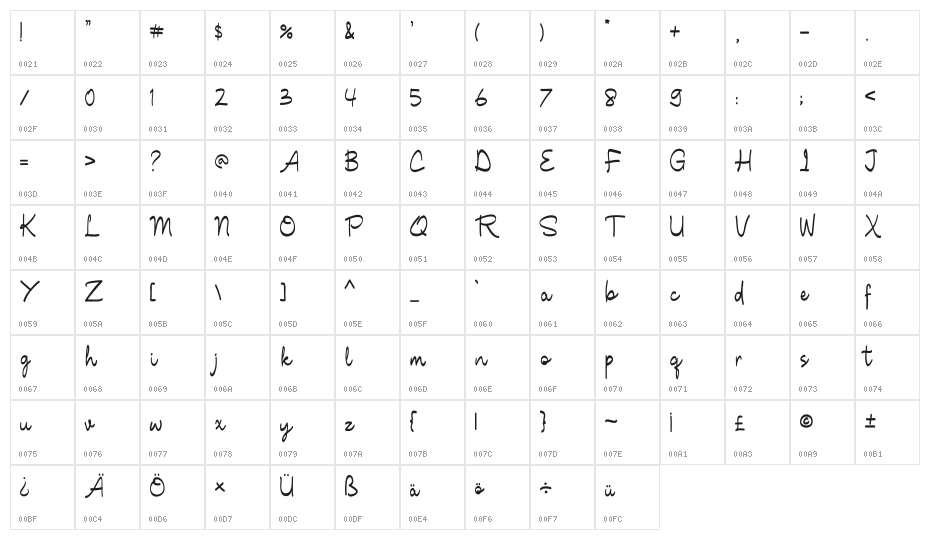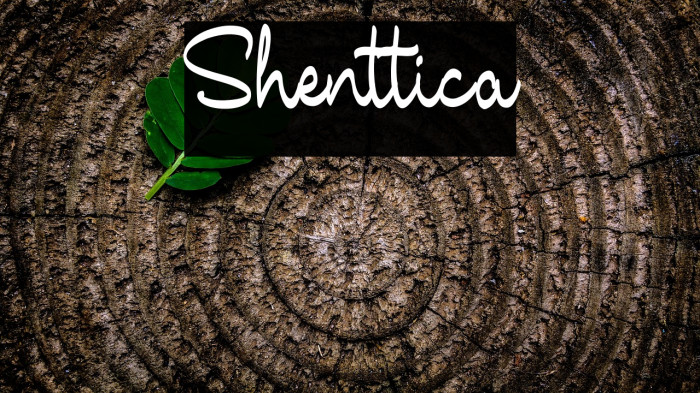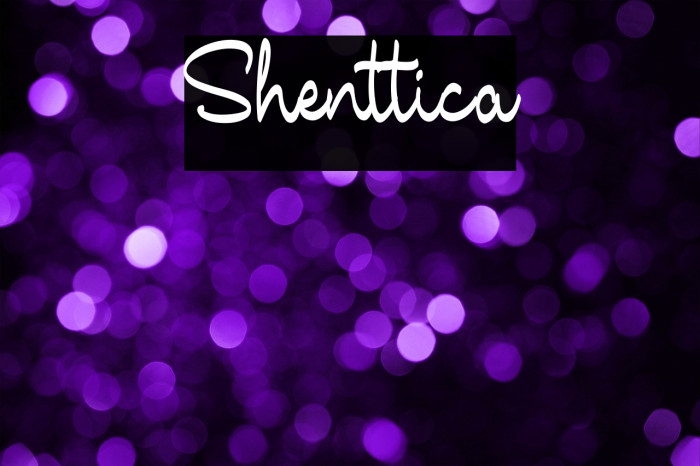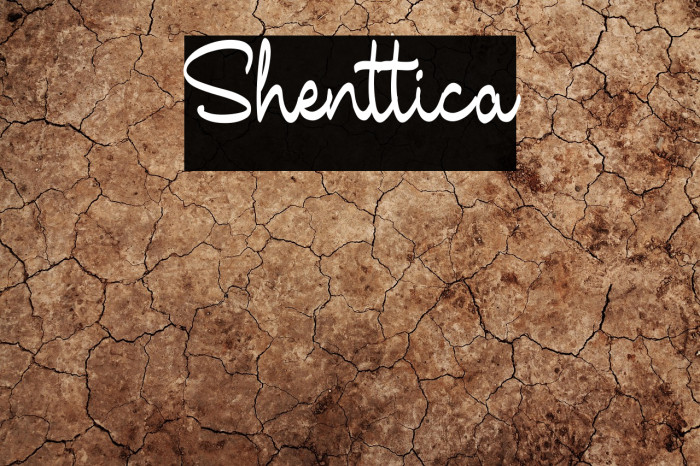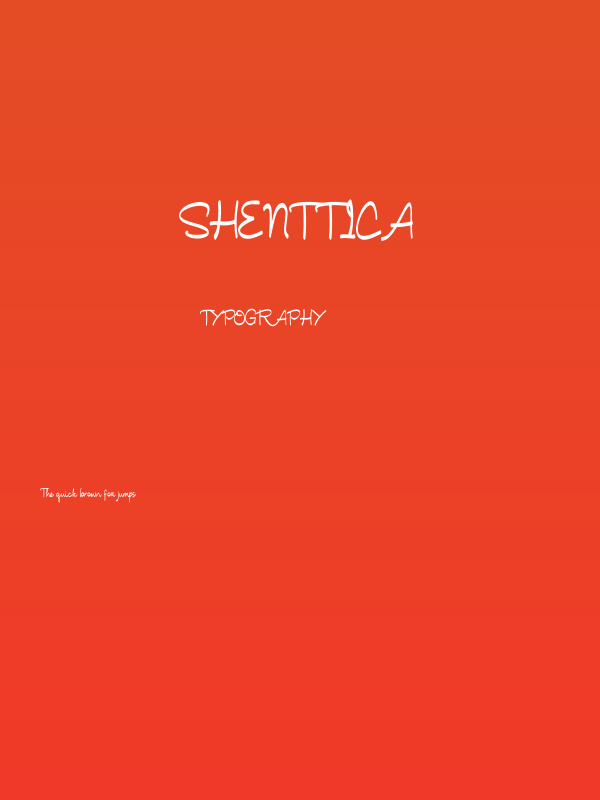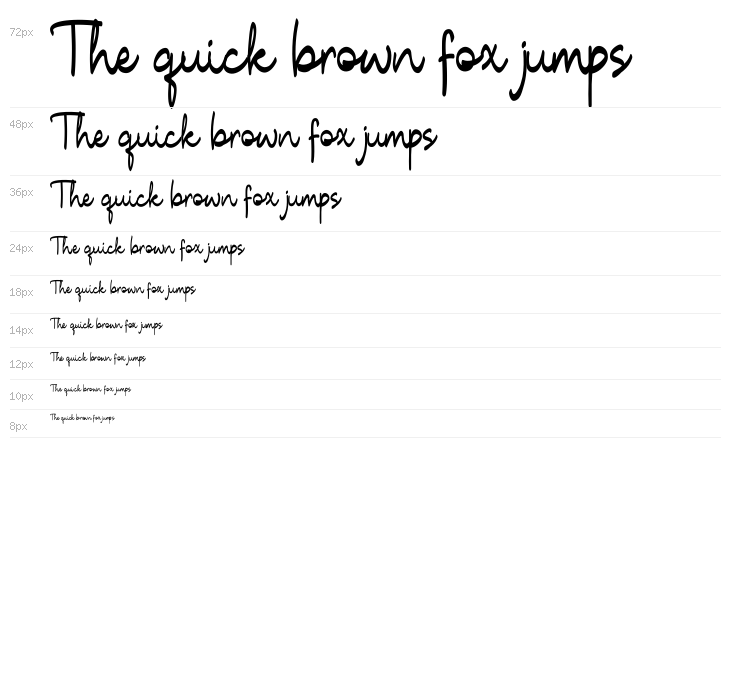
Shenttica Font
Shenttica Description
This font features a playful and casual handwritten style, characterized by its fluid strokes and slightly irregular letterforms. The uppercase letters are bold and dynamic, while the lowercase letters maintain a consistent flow, adding a touch of whimsy. The numerals are clear and legible, complementing the overall style. Special characters are creatively integrated, enhancing the font's versatility. Its informal and friendly appearance makes it suitable for projects that require a personal touch.
| Proposed Projects | Ideal for greeting cards, invitations, personal branding, and creative projects that seek a friendly and informal tone. |